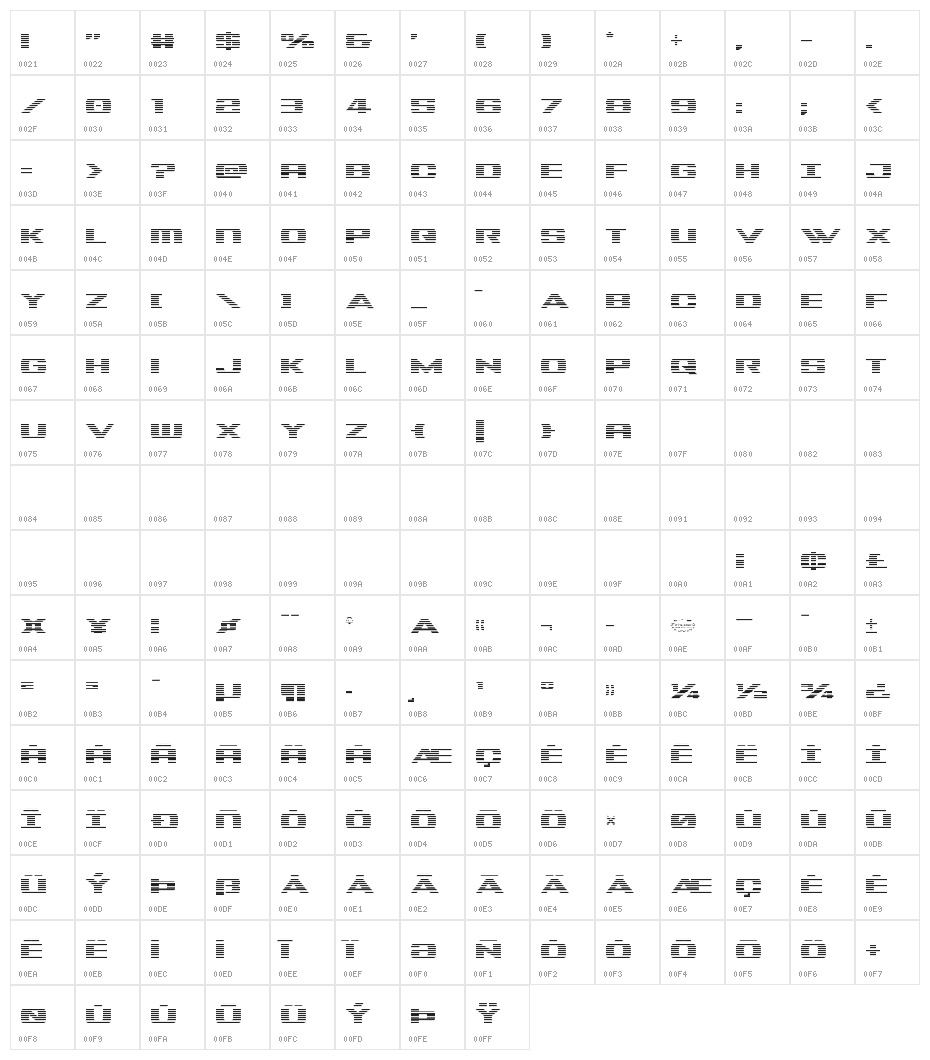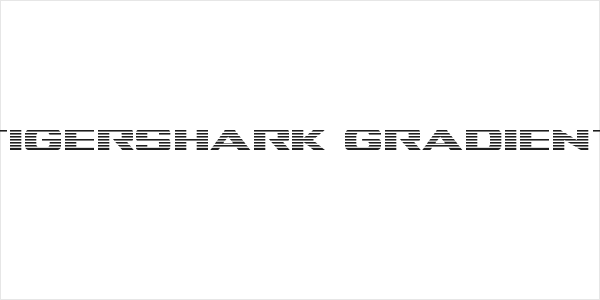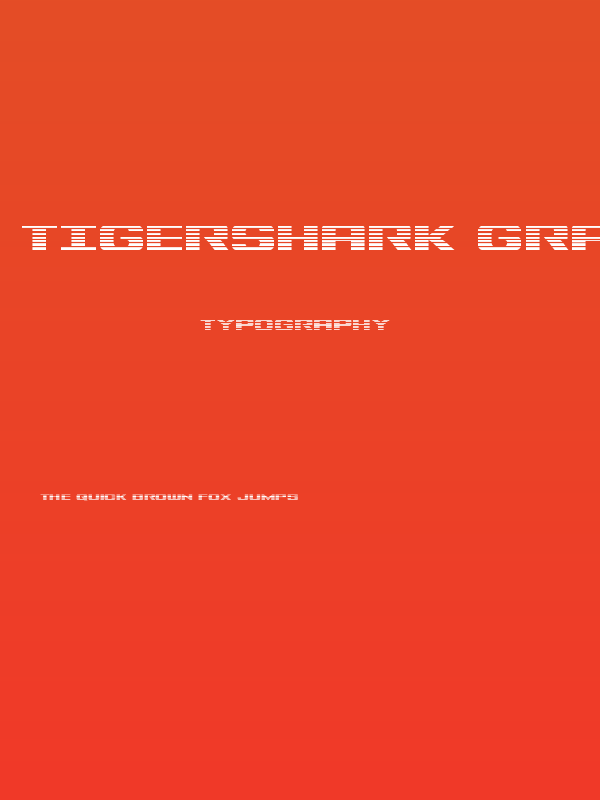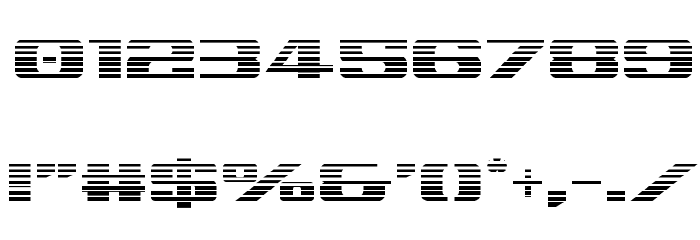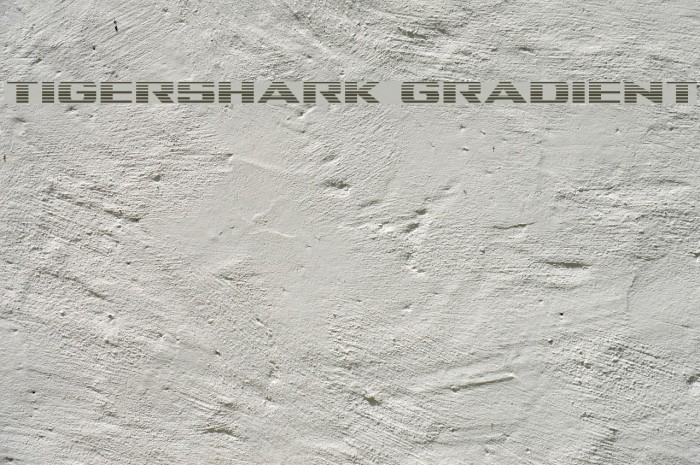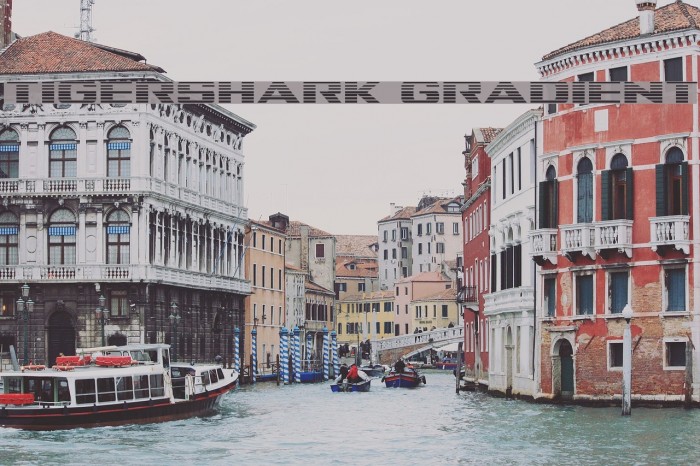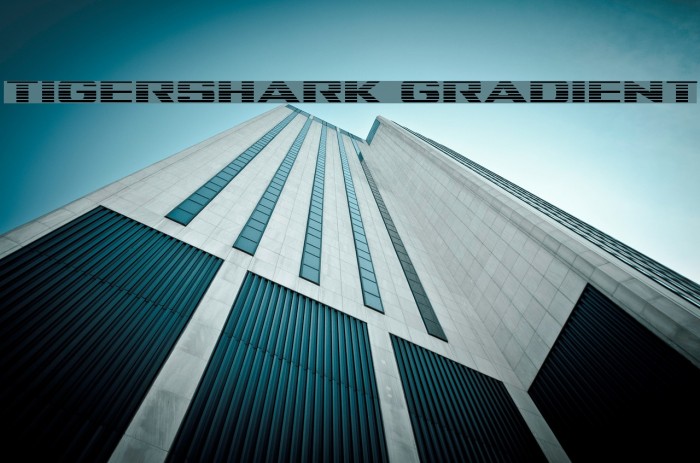
Tigershark Gradient Font
Tigershark Gradient Description
This font features a bold, futuristic design with a distinct striped pattern running horizontally across each character. The uppercase letters are angular and geometric, giving a sense of speed and modernity. The numerals and special characters maintain this striped motif, ensuring consistency throughout the typeface. The overall appearance is striking and dynamic, making it ideal for projects that require a strong visual impact. The font's unique style is reminiscent of digital or technological themes, suitable for creative and contemporary designs.
| Overall Style | Futuristic, Modern |
| Proposed Projects | Ideal for technology branding, video game titles, futuristic posters, and digital media projects. |